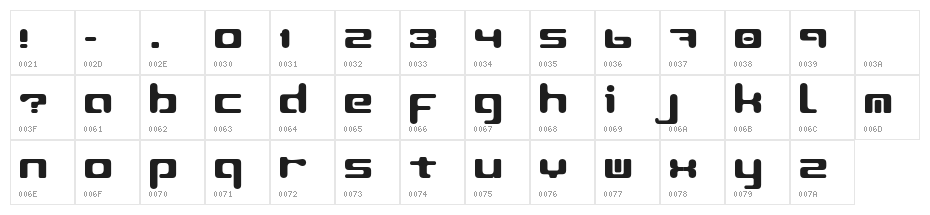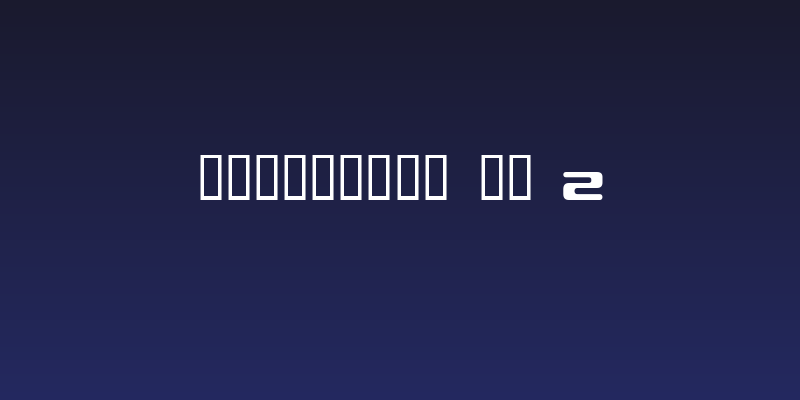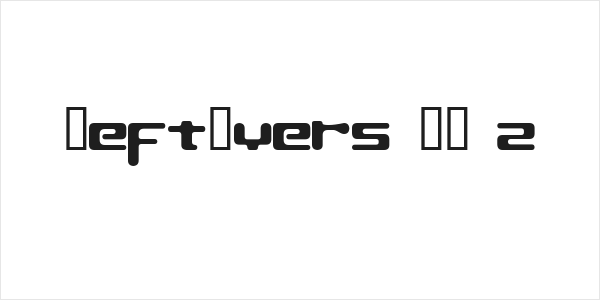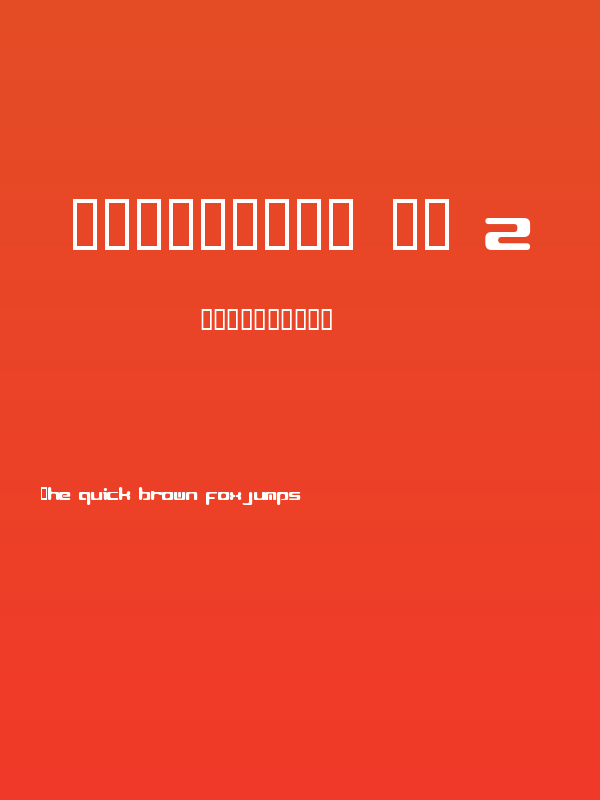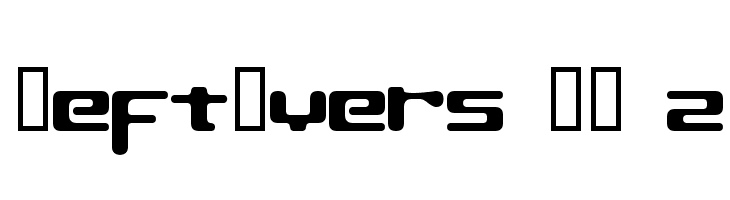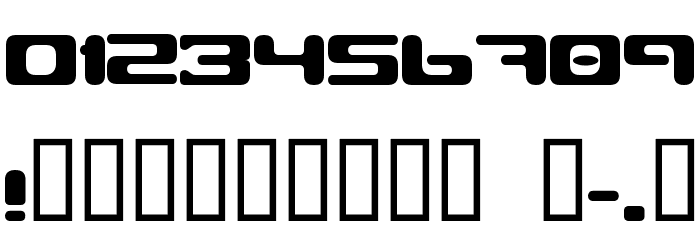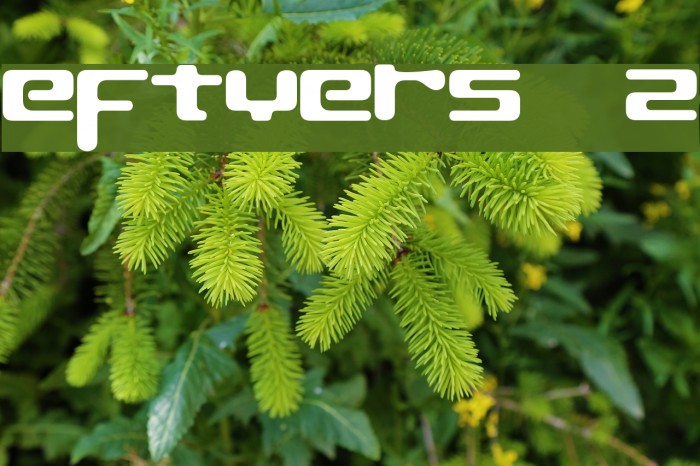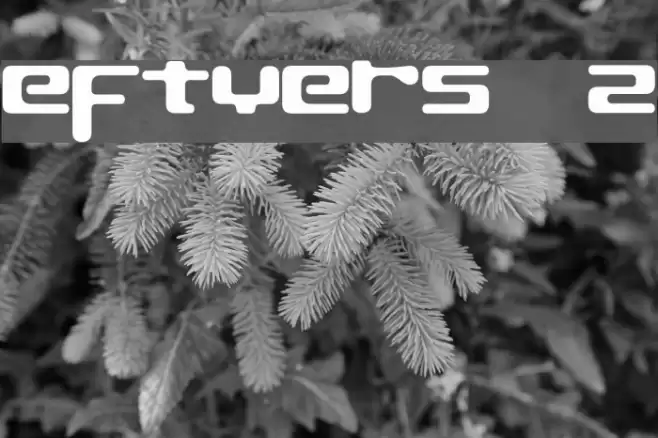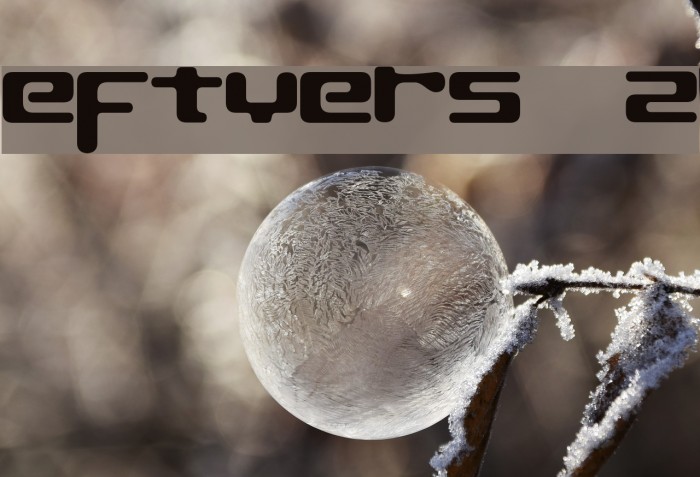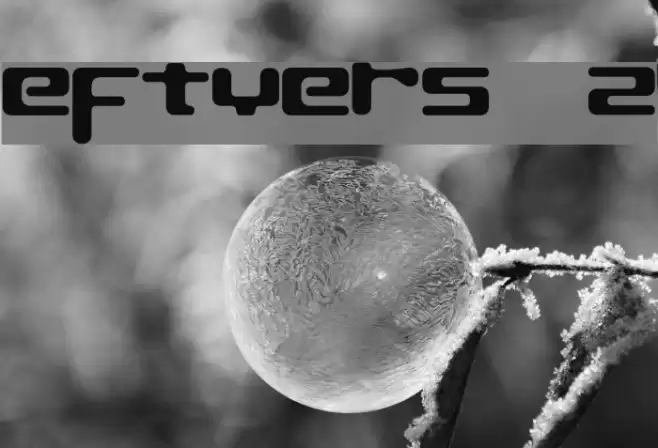
LeftOvers II 2 Font
✎ Futuristic
LeftOvers II 2 Description
This font features a modern and futuristic design with rounded edges and a bold presence. The lowercase letters are distinct with a playful yet structured appearance, making them stand out in any design. The numbers and special characters maintain the same rounded and bold style, ensuring consistency across all characters. This font is perfect for projects that require a contemporary and eye-catching look, such as tech-related branding or modern advertising campaigns. The unique style of the characters adds a creative flair, making it suitable for innovative and dynamic projects.
| Use Case | Logos, Headlines |
| Proposed Projects | Ideal for tech branding, modern advertising, and innovative design projects. |